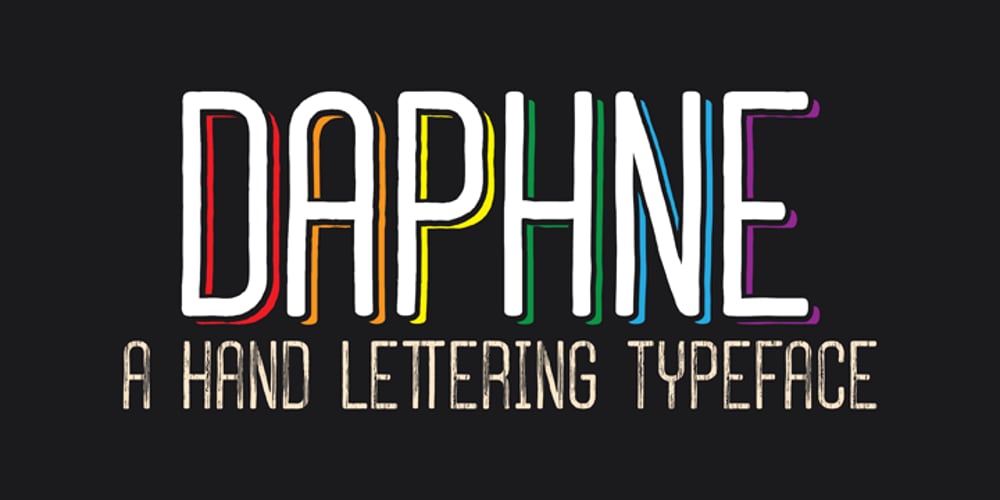
Daphne Font Family was designed by Ahmet Altun and published by Ahmet Altun. Daphne contains 12 styles and family package options. In the beginning, this font had been designed for an affiche work as wood pattern which includes one font and medium weight. The stylish design of this font had been inclined us to create more weights and more styles. Daphne Font Family comes in three weights; normal and italic. Plus two additional styles which are wood pattern and shadow. You can get great wood pattern results with Daphne Font Family; also with colored shadows, you can get gorgeous results in poster works and t-shirt prints. Even in very small type sizes, it can be legible.